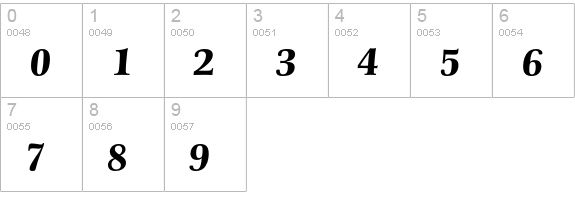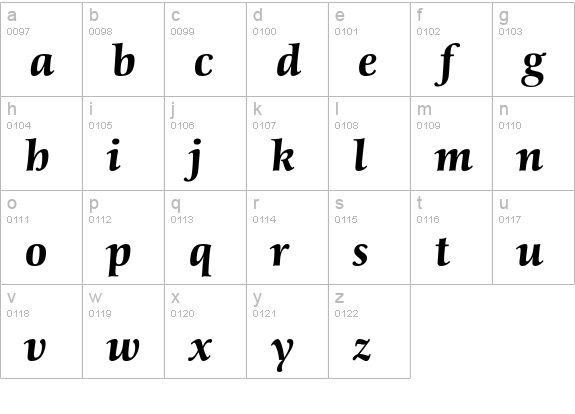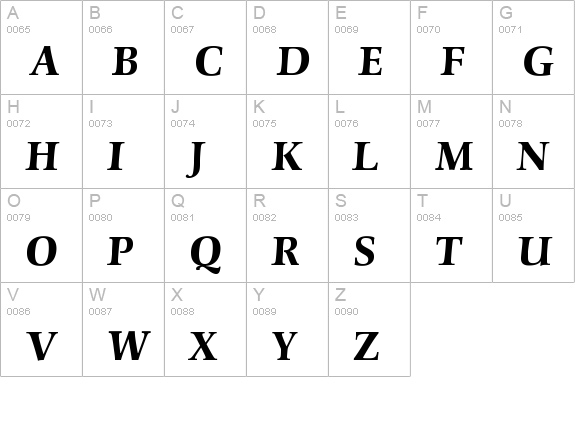
Schneider-Antiqua Bold Italic Font Details
Schneider-Antiqua Bold Italic is a strong, high-contrast, italic variant in the Schneider typeface family \xE2\x80\x94 well suited to headlines, attention-grabbing titles, and strong calls-to-action.
Schneider-Antiqua Bold Italic font is a stunning and versatile typeface that exudes elegance and sophistication. With its bold and slanted nature, this font adds a touch of drama and impact to any design project. Designed with meticulous attention to detail, Schneider-Antiqua Bold Italic effortlessly combines traditional elements with a modern twist. Its gracefully curved letterforms and refined strokes create a harmonious balance that is visually captivating. This font is ideal for a wide range of applications, from branding and packaging to editorial design and advertising. Its bold and italic variations make it perfect for headlines, titles, and emphasis, while still being highly legible in longer texts. One of the most remarkable aspects of Schneider-Antiqua Bold Italic font is that it is freely available to download at FontsMarket.com. This means that designers and creatives of all levels can access this exceptional typeface without any barriers. Whether you are a seasoned professional or a passionate hobbyist, this font is an invaluable addition to your font library. The versatility and timeless appeal of Schneider-Antiqua Bold Italic font make it a go-to choice for designers seeking to make a bold statement. Its unique combination of classic charm and contemporary flair adds a touch of sophistication to any project, making it truly stand out from the crowd. Embrace the beauty of Schneider-Antiqua Bold Italic font and elevate your designs to new heights. Download this extraordinary typeface for free at FontsMarket.com and unlock boundless creative possibilities.